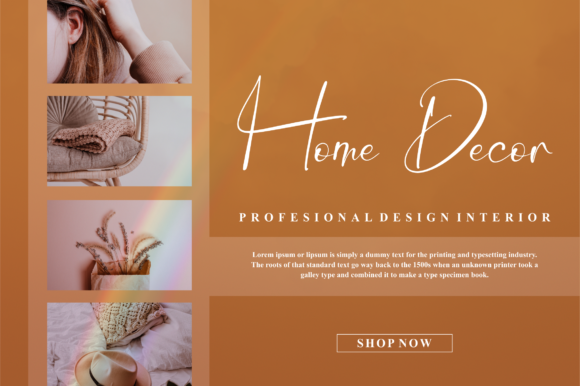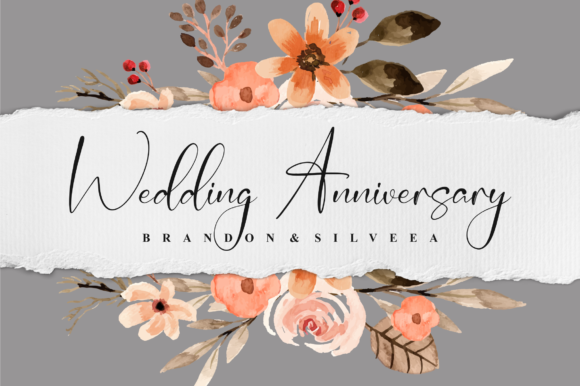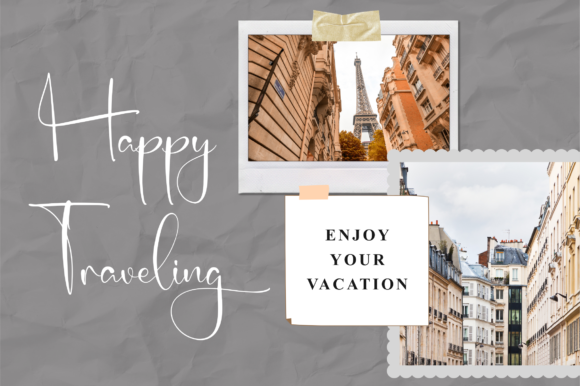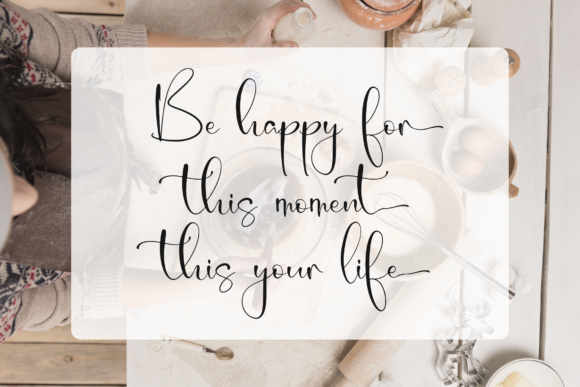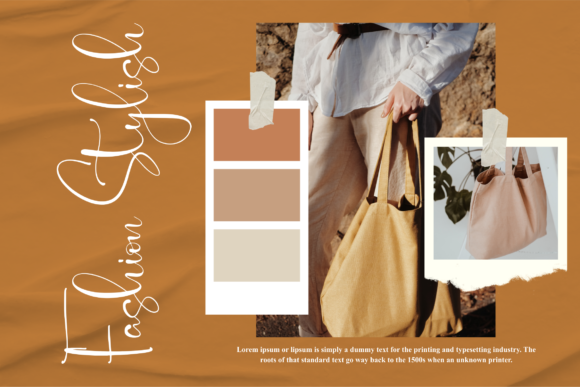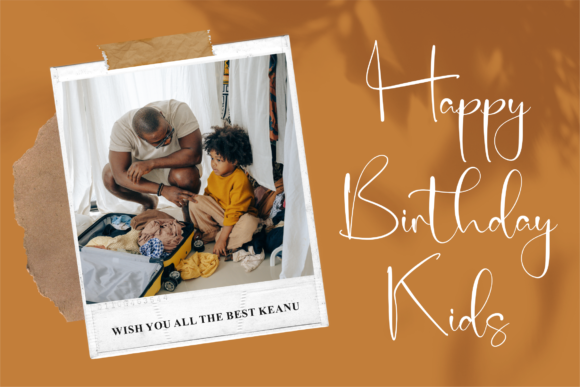
The Perfect Script: Unlocking the Beauty of Arlinda Font
Have you ever found yourself staring at a blank page, trying to bring your creative vision to life? For many designers, the search for the perfect font can be a daunting task. But what if I told you that the perfect script is just a click away? Enter Arlinda Font, a stunning script font designed to elevate your projects and leave a lasting impression.
Arlinda Font is more than just a font – it’s a tool that can breathe life into your logos, branding projects, and homeware designs. With its beautiful script style, this font is perfect for adding a touch of elegance to product packaging, mugs, quotes, posters, and so much more. What sets Arlinda Font apart is its PUA encoding, making it easy to access all of the glyphs and swashes with ease.
As a designer, you know the importance of having the right tools at your disposal. Arlinda Font is a valuable addition to any design arsenal, offering endless possibilities for creativity and expression. Whether you’re working on a special event, product packaging, or a heartfelt greeting card, Arlinda Font is the perfect companion to bring your vision to life.
- Unique Characteristics: The Arlinda Font features a unique blend of modern and traditional design elements, making it suitable for various applications, including branding, advertising, and editorial content.
Arlinda Font is a beautiful, elegant script font that I had the pleasure of working with. Here’s my honest review.
- The fluid connections between letters make Arlinda Font perfect for crafting invitations, quotes, and other handwritten-style designs.
- The font’s classic feel makes it suitable for a wide range of projects, from wedding stationery to food labels.
- The font’s high legibility means it’s easy to read, even in smaller font sizes.
- The font may not be suitable for bold, modern designs, as it has a more traditional feel.
- The font’s delicate connections between letters can make it difficult to use in situations where precision is key.
- The font may not be as versatile as other fonts in terms of font sizes, as it starts to lose its elegance at very large or very small sizes.
Overall, I think Arlinda Font is a lovely addition to any designer’s toolkit. While it may not be the best choice for every project, it’s perfect for those who want to add a touch of elegance and sophistication to their designs.